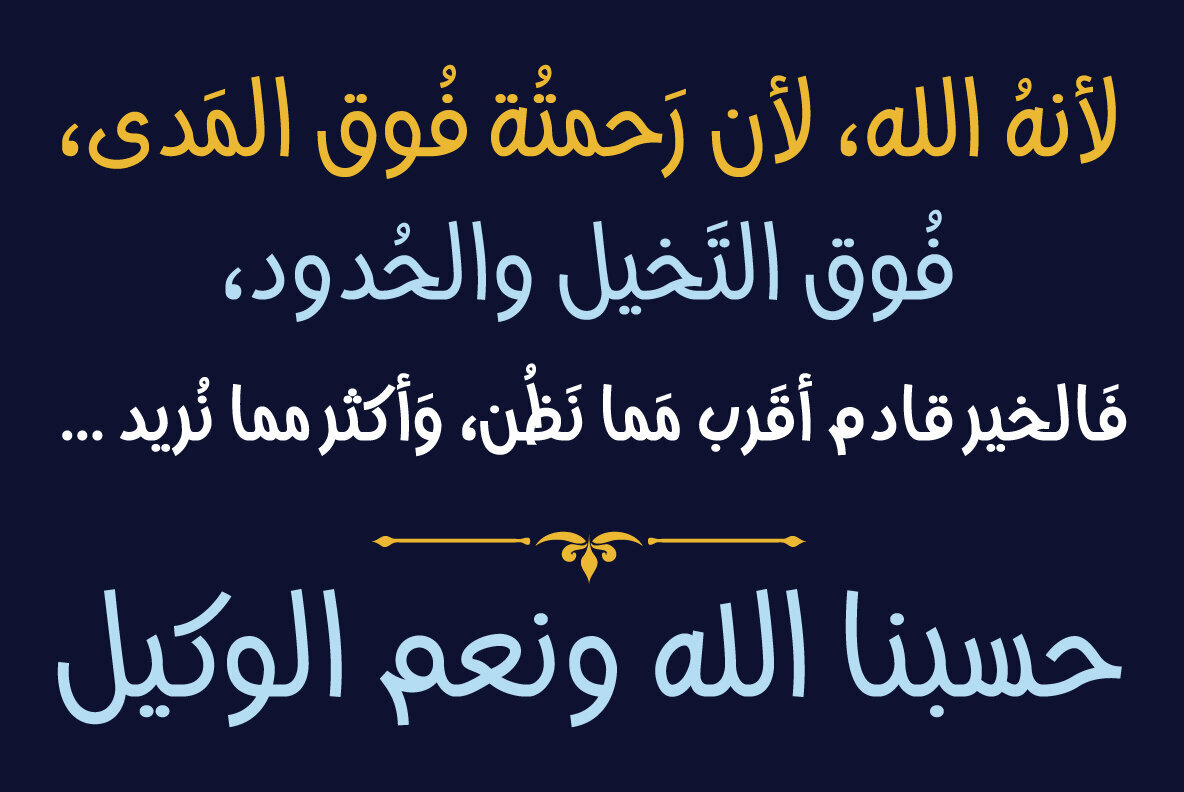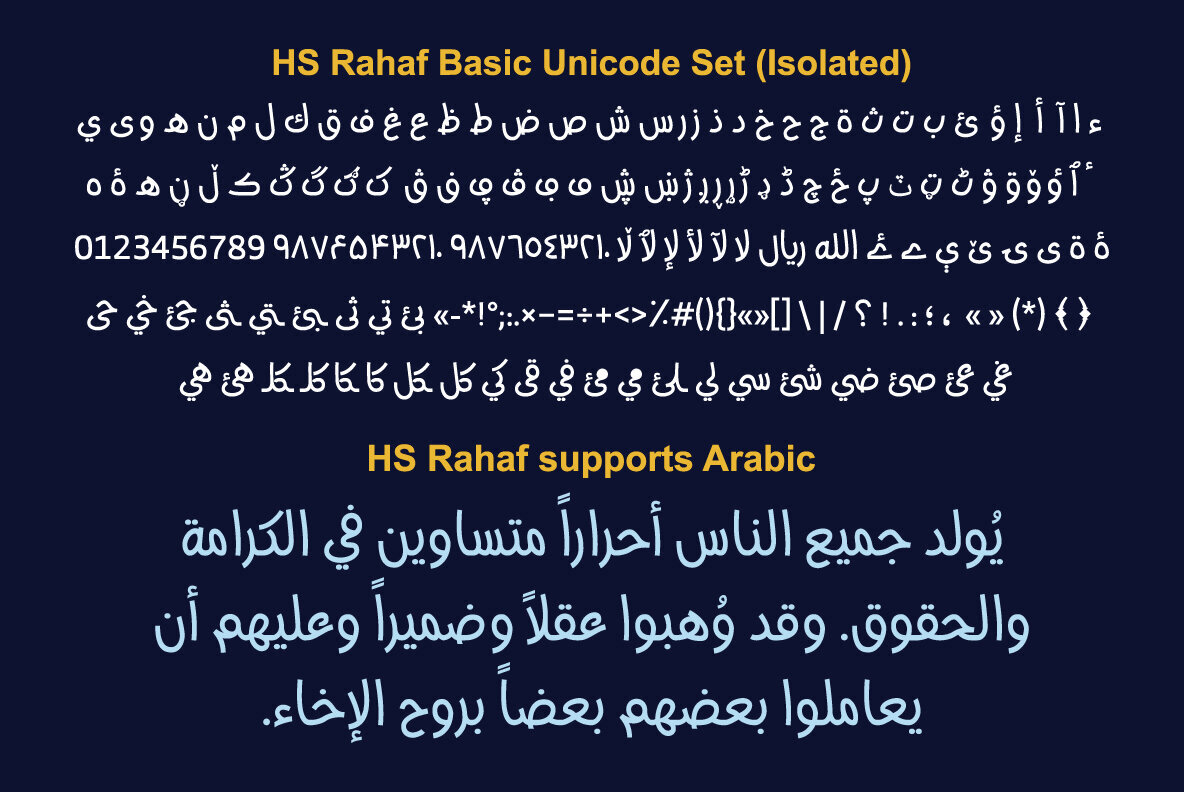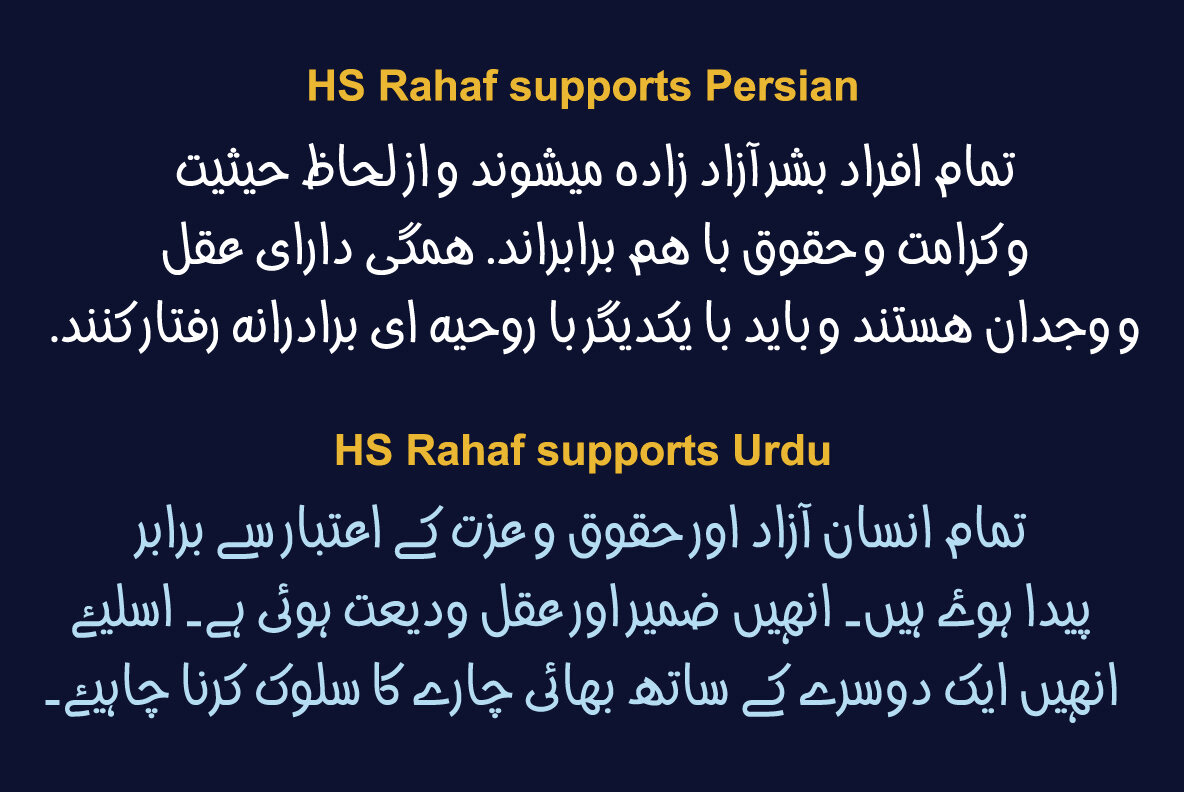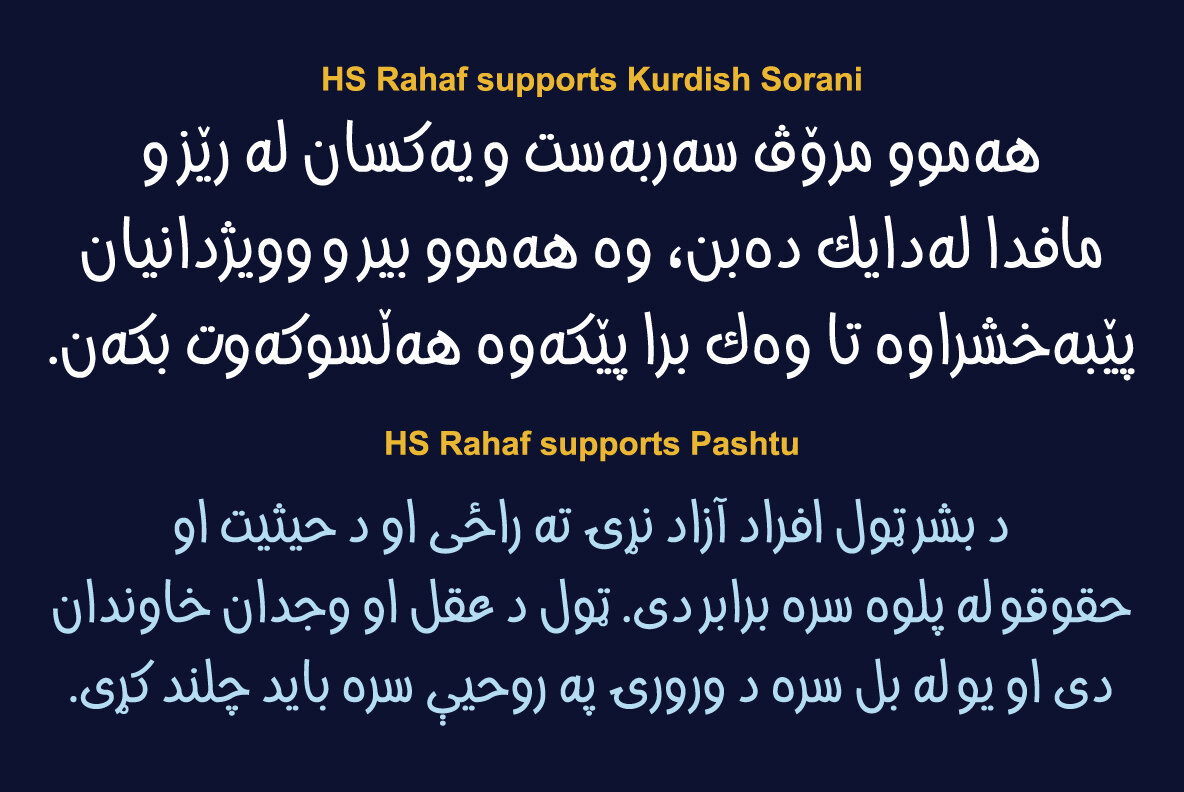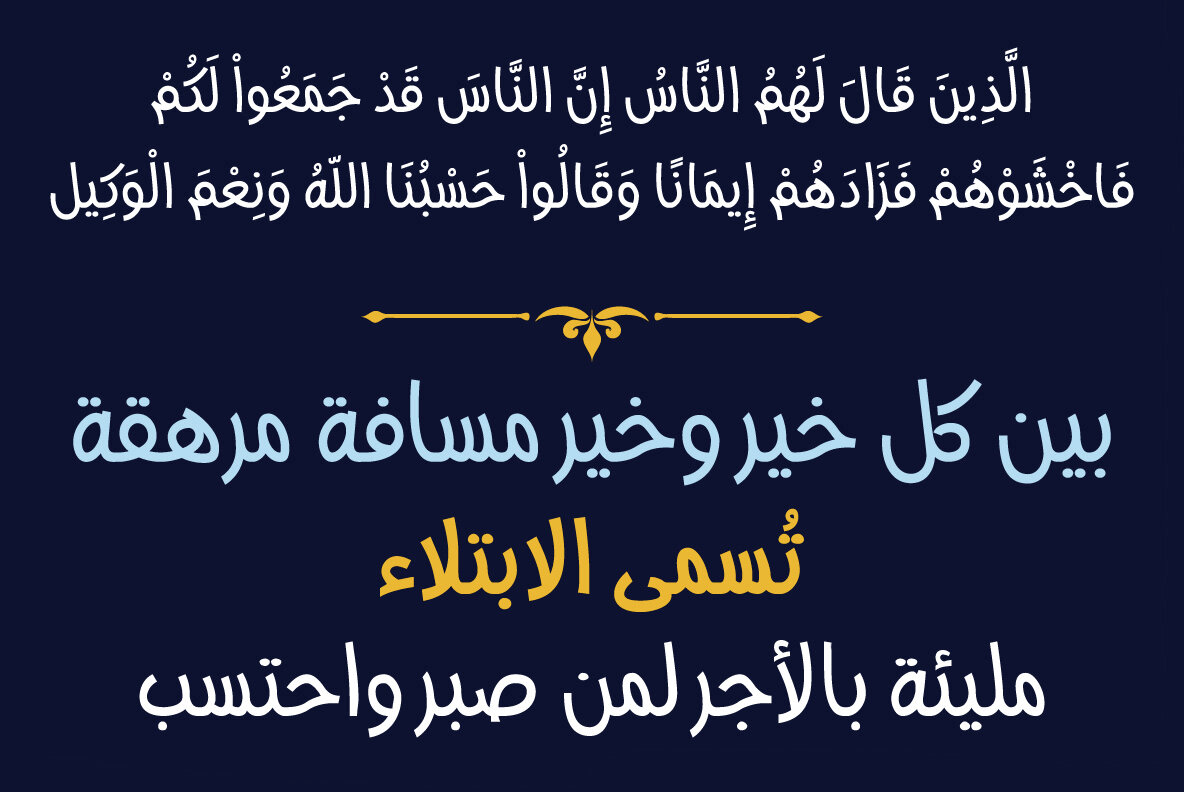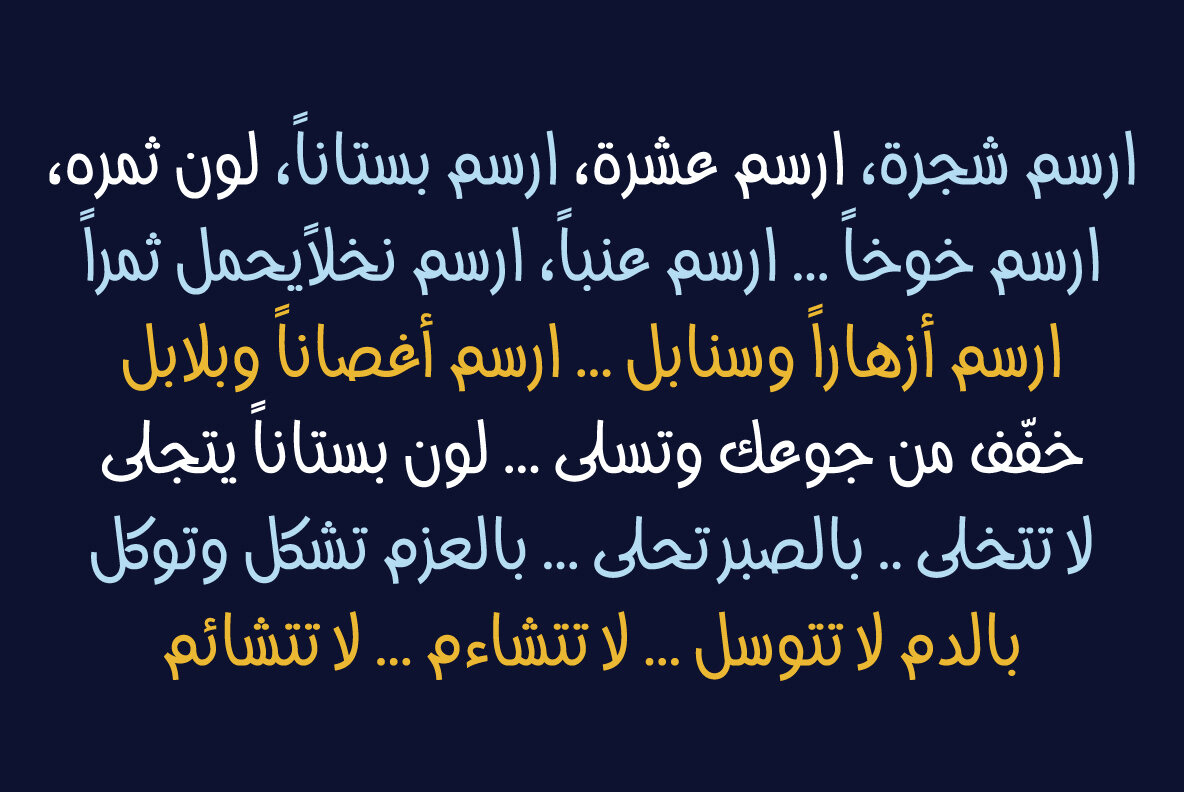
HS Rahaf Font
HS Rahaf is named after my little daughter, Rahaf, whose name signifies kindness, sensitivity, and love in Arabic. This typeface draws inspiration from her name and embodies these qualities in its design. HS Rahaf is an Arabic display and text typeface designed to evoke the charm of hand-lettering, making it perfect for headlines, book covers, and other graphic projects. The typeface’s hand-written feel makes it ideal for text in caricatures and children's books. HS Rahaf is characterized by its simplicity, readability, and elegant flair. It features numerous ligatures that enhance its beauty. The font supports Arabic, Persian, Urdu, Kurdish, and Pashto languages.